20+ Best New Fonts for Framer Templates & Modern Website Design
Discover 20+ of the best new fonts perfect for Framer templates and modern website design. Elevate your site’s typography with stylish, high-performance font picks for 2025.
Looking to elevate your Framer website with bold, stylish typography? Whether you're building a portfolio, SaaS landing page, or blog, the right font makes all the difference. We've handpicked 20+ of the best new fonts that are not only beautiful but also optimized for modern web design in 2025.
From clean sans-serifs to expressive display fonts, this list will help your next Framer project stand out.
Best New Fonts for Framer Templates & Modern Website Design
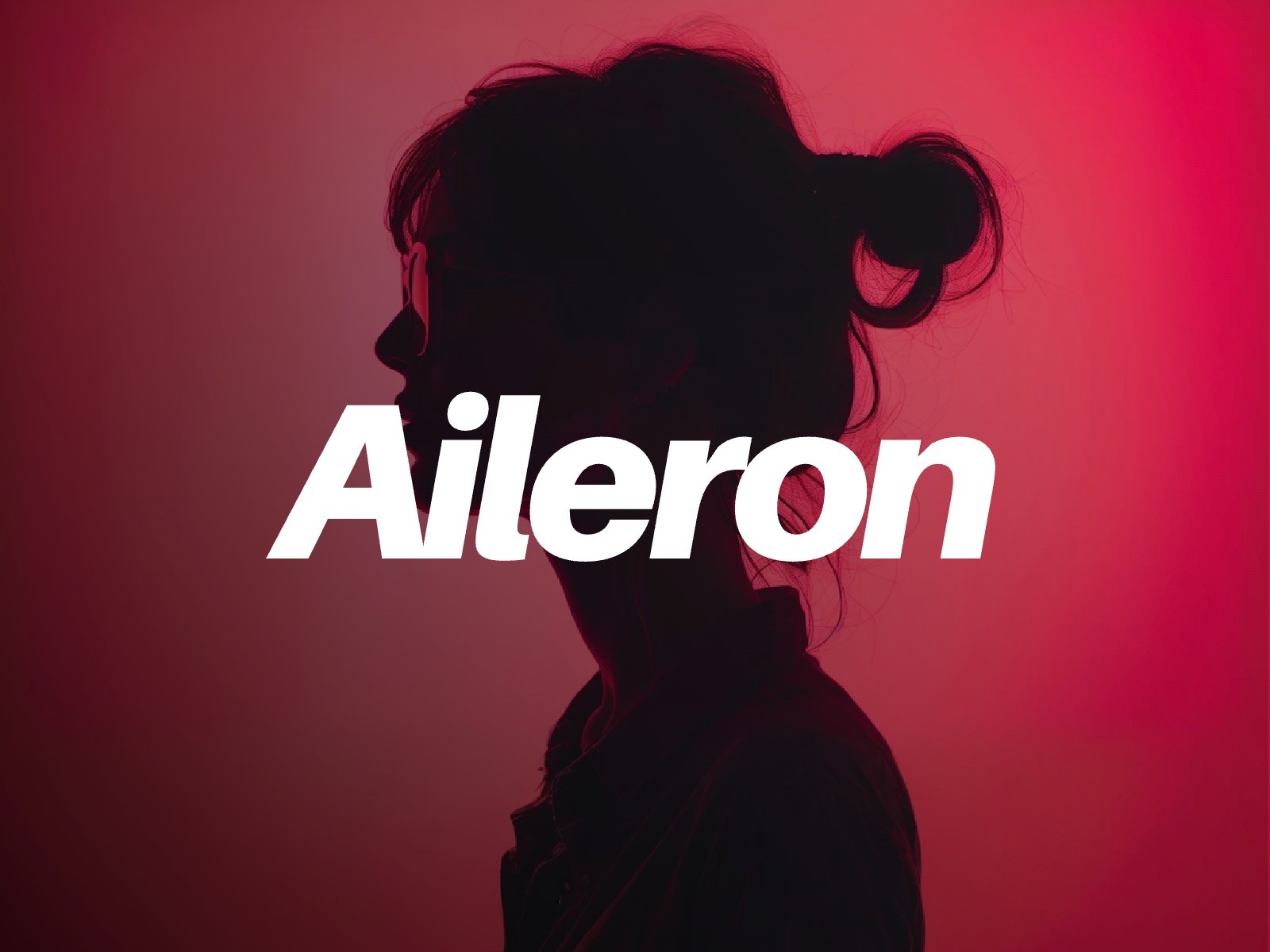
1. Aileron by Dot Colon
Inspired by Helvetica but with smoother curves—ideal for apps, SaaS products, and minimalist portfolios.
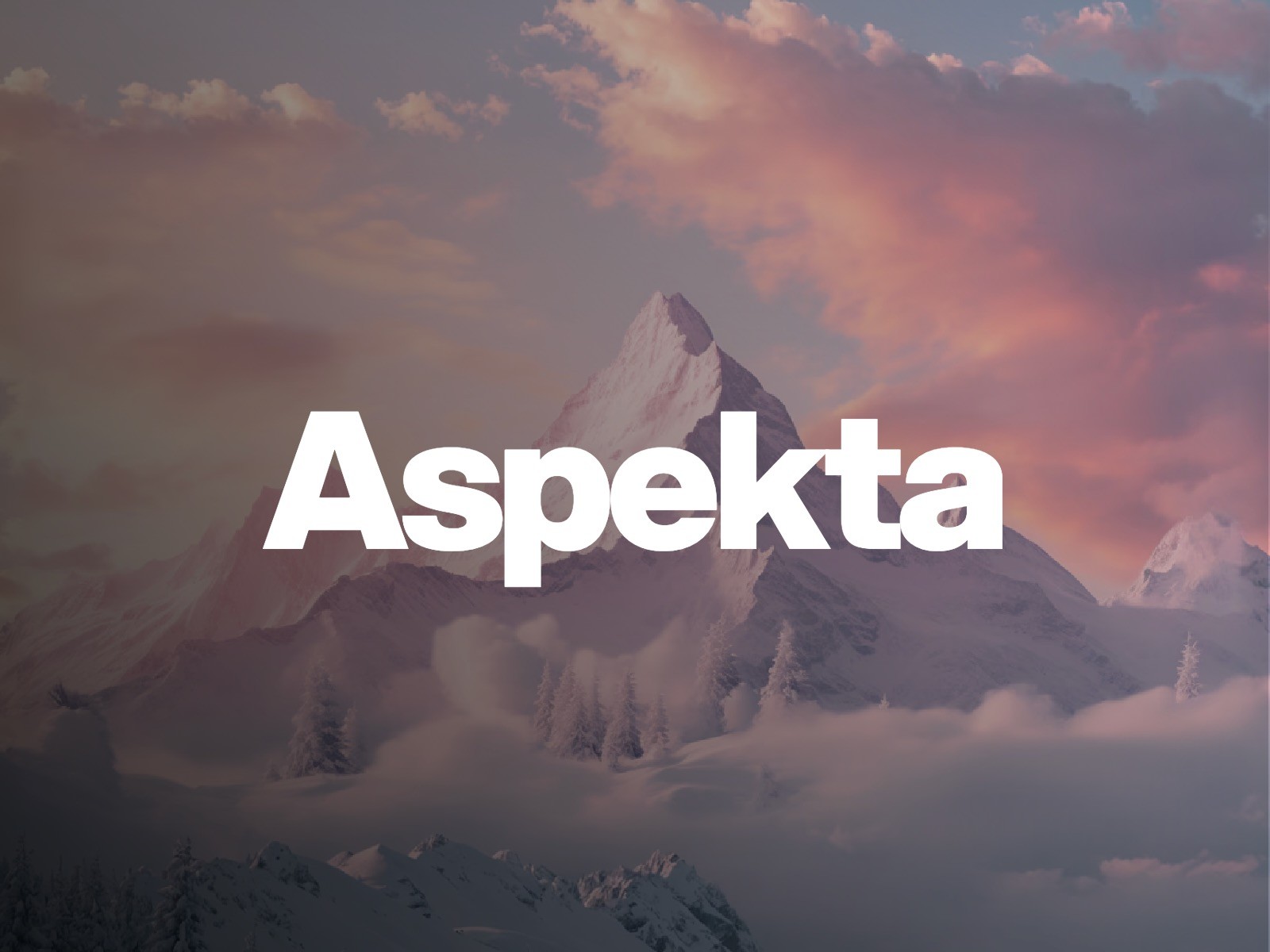
2. Aspekta by Ivo Dolenc
A different visual crop to highlight how Aspekta performs in full-width layouts or hero sections.
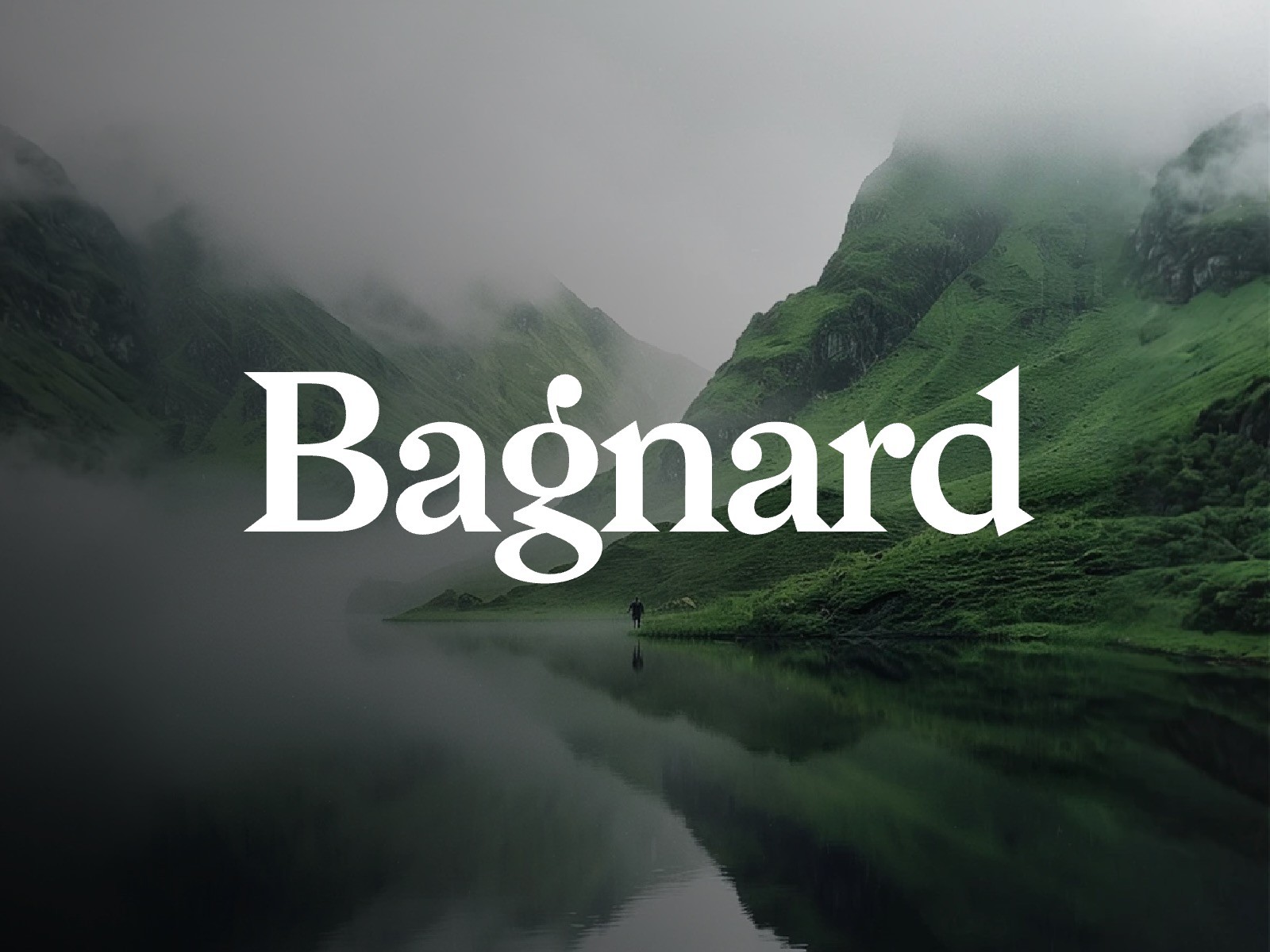
3. Bagnard by Sebastien Sanfilippo
Sharp serifs and powerful presence make Bagnard a smart pick for luxury brands and bold design portfolios.
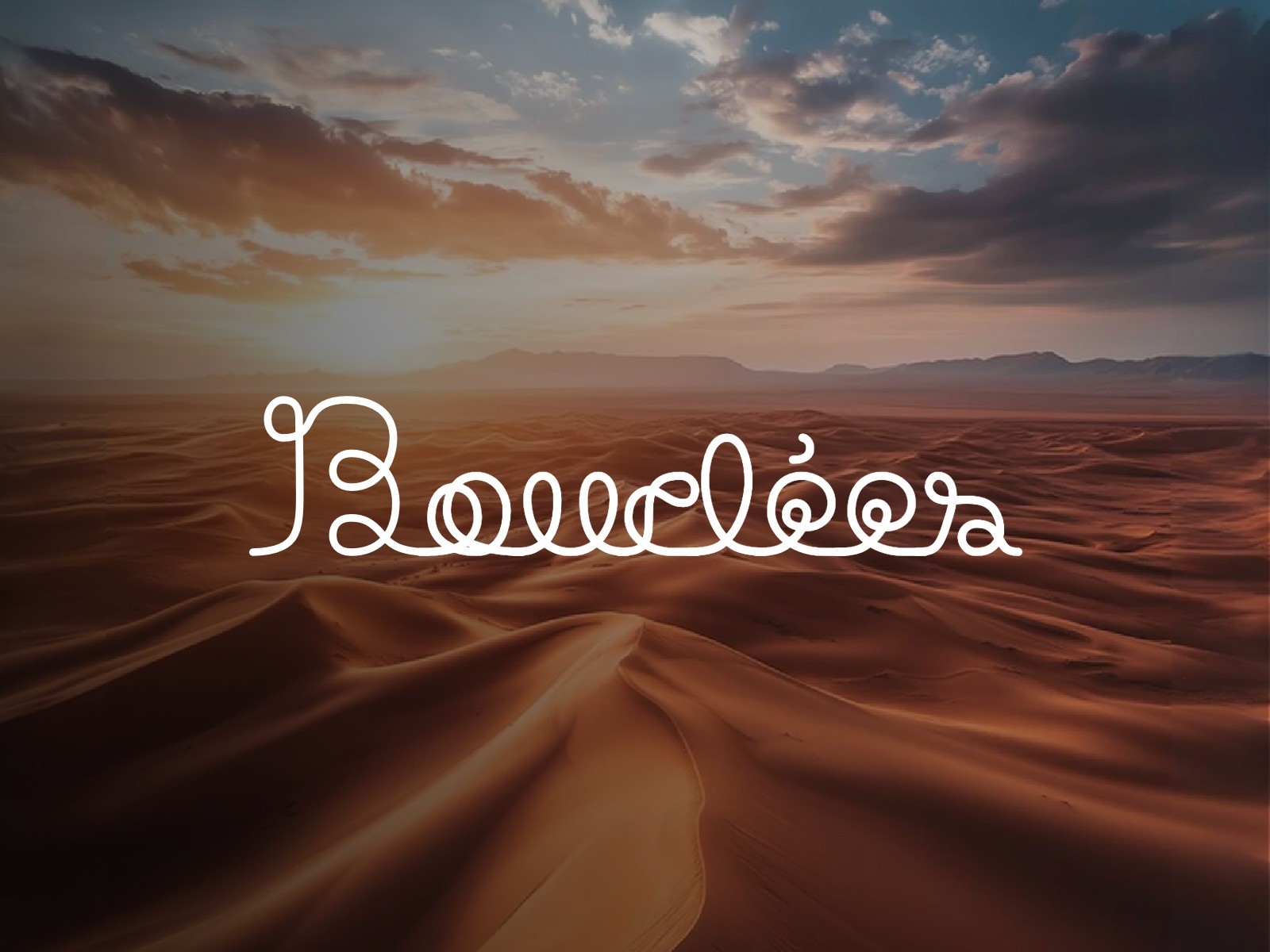
4. Bouclées by BBB
Full of character, Bouclées is a decorative, script-like font—best for artistic projects, event sites, or brand storytelling.
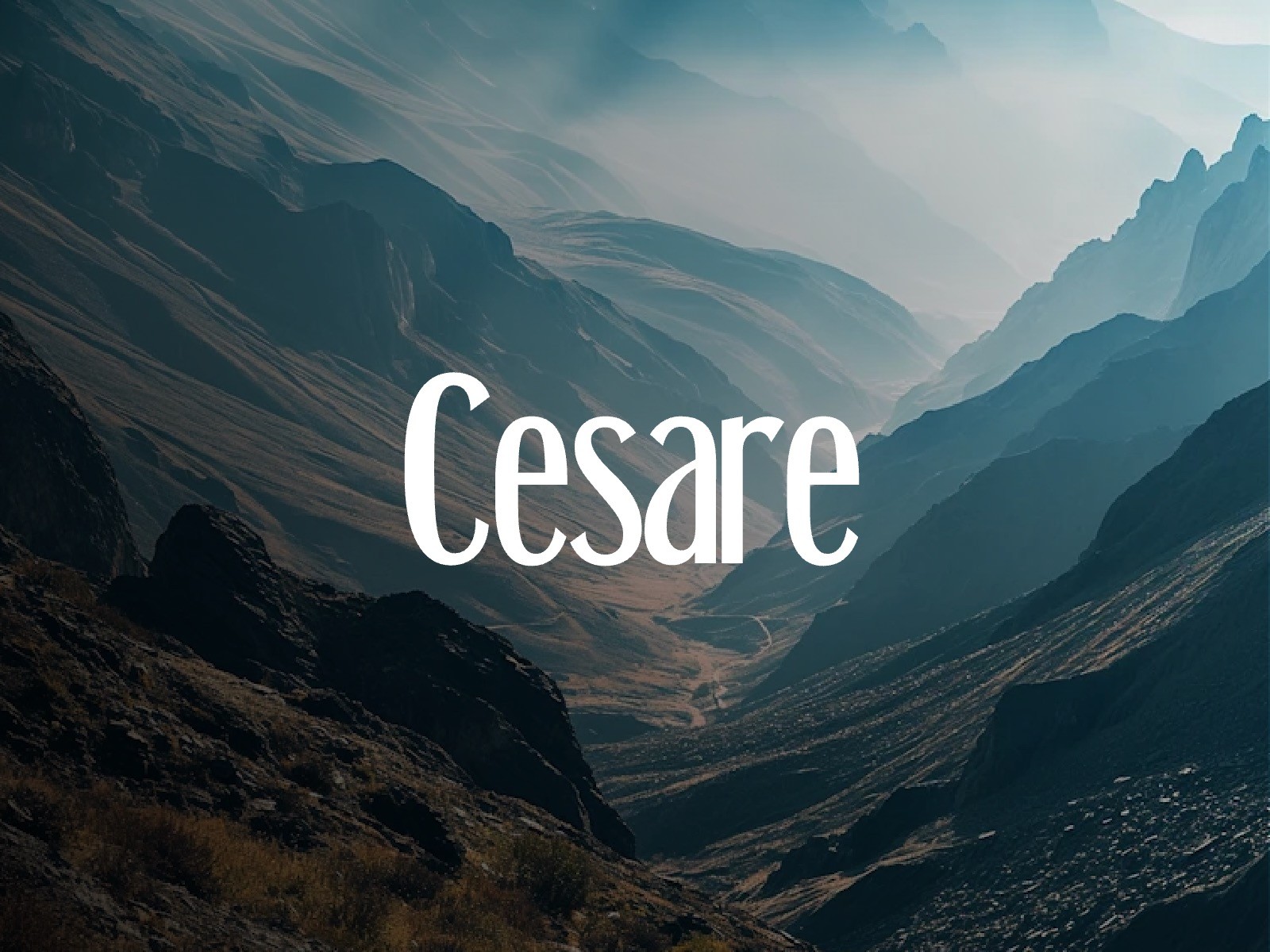
5. Cesare by Alan Madić
A tall, curvy serif font that strikes a balance between elegance and flair. Ideal for digital magazines or elegant landing pages.
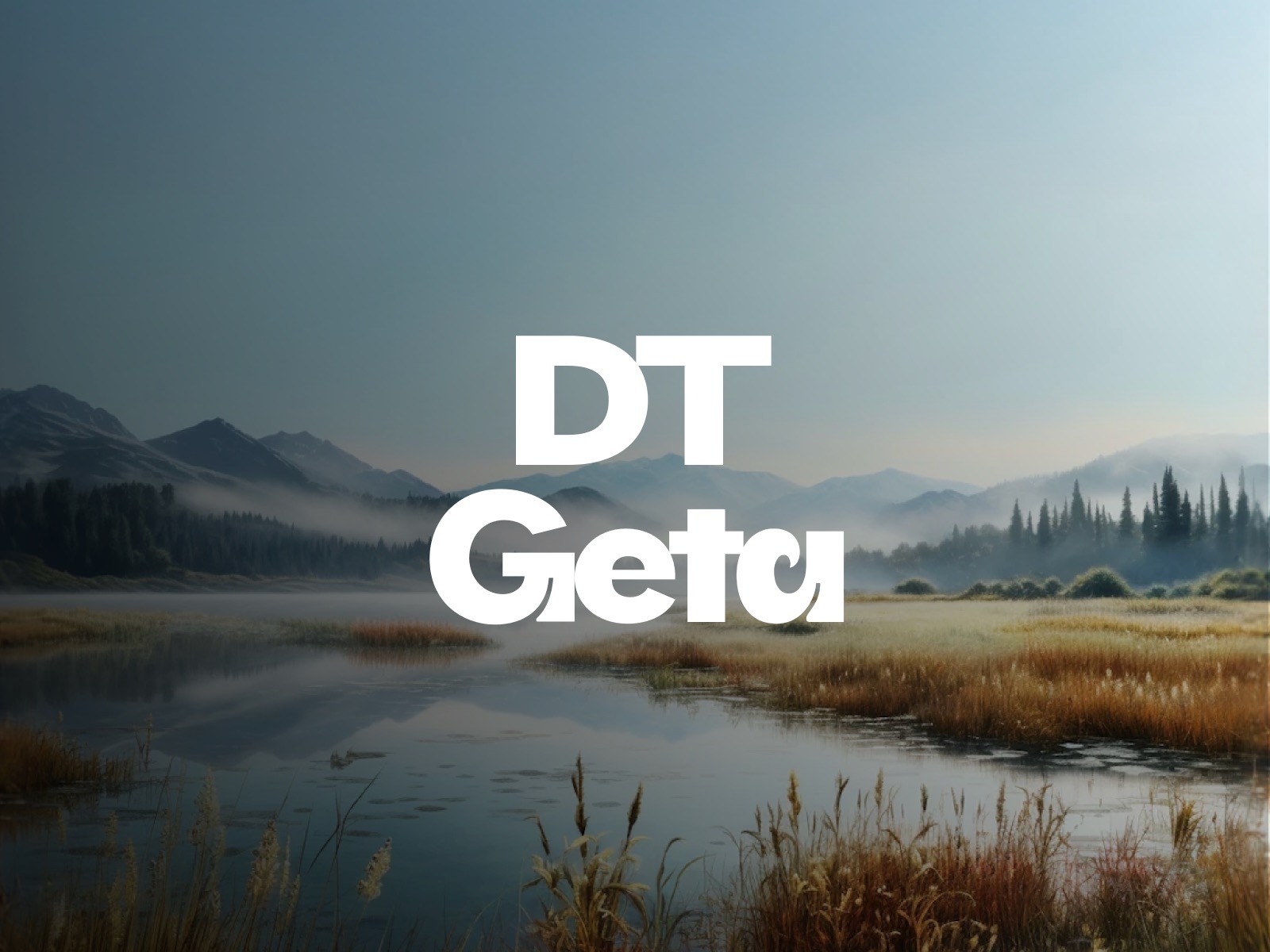
6. DT Getai by DOT and Sylvester San
DT Geta blends modernist proportions with soft curves—great for clean UI, product pages, and modern branding.
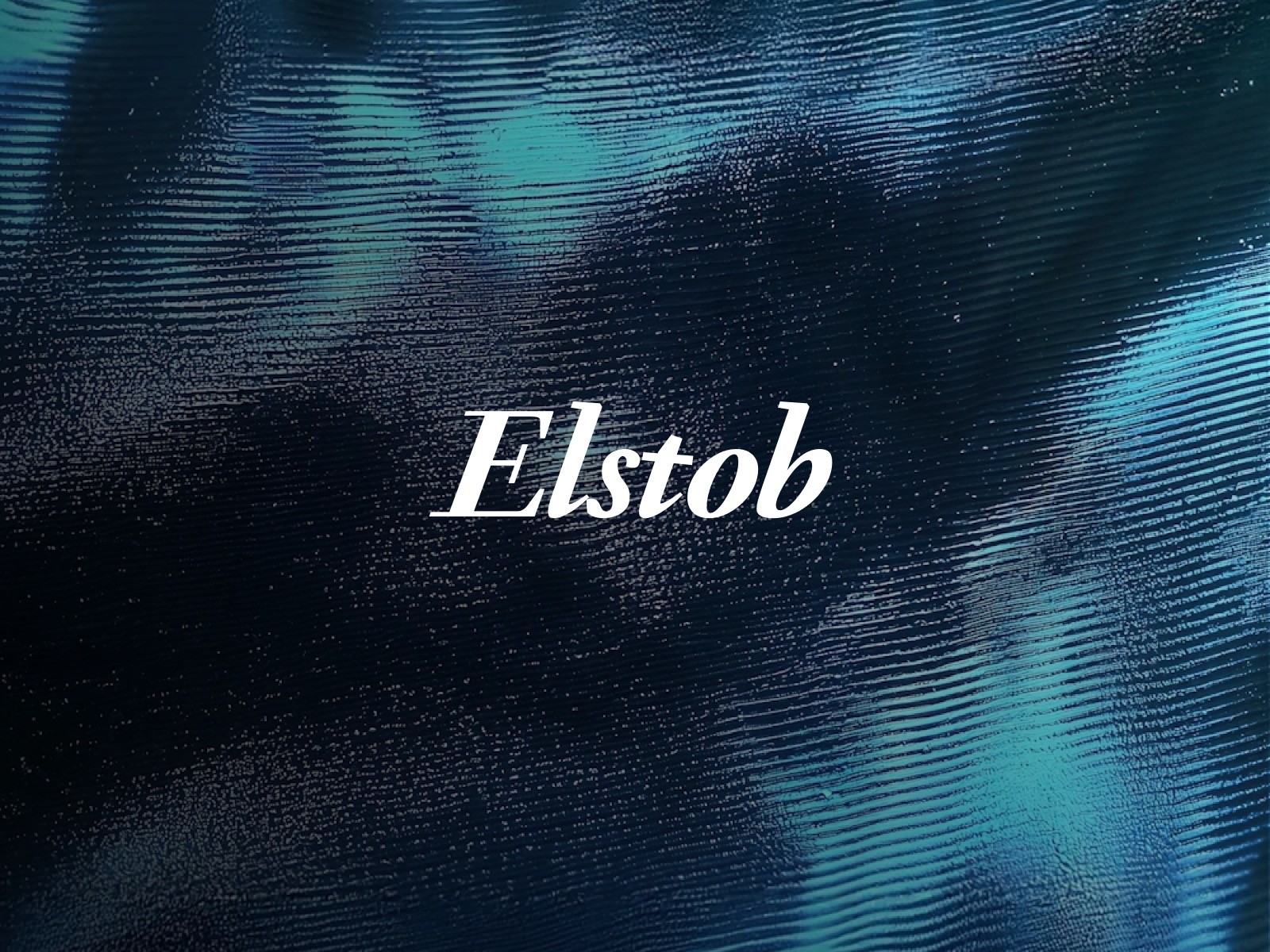
7. Elstob by Peter Baker
A high-contrast serif font with timeless elegance, ideal for editorial layouts, fashion brands, or minimalist blogs.
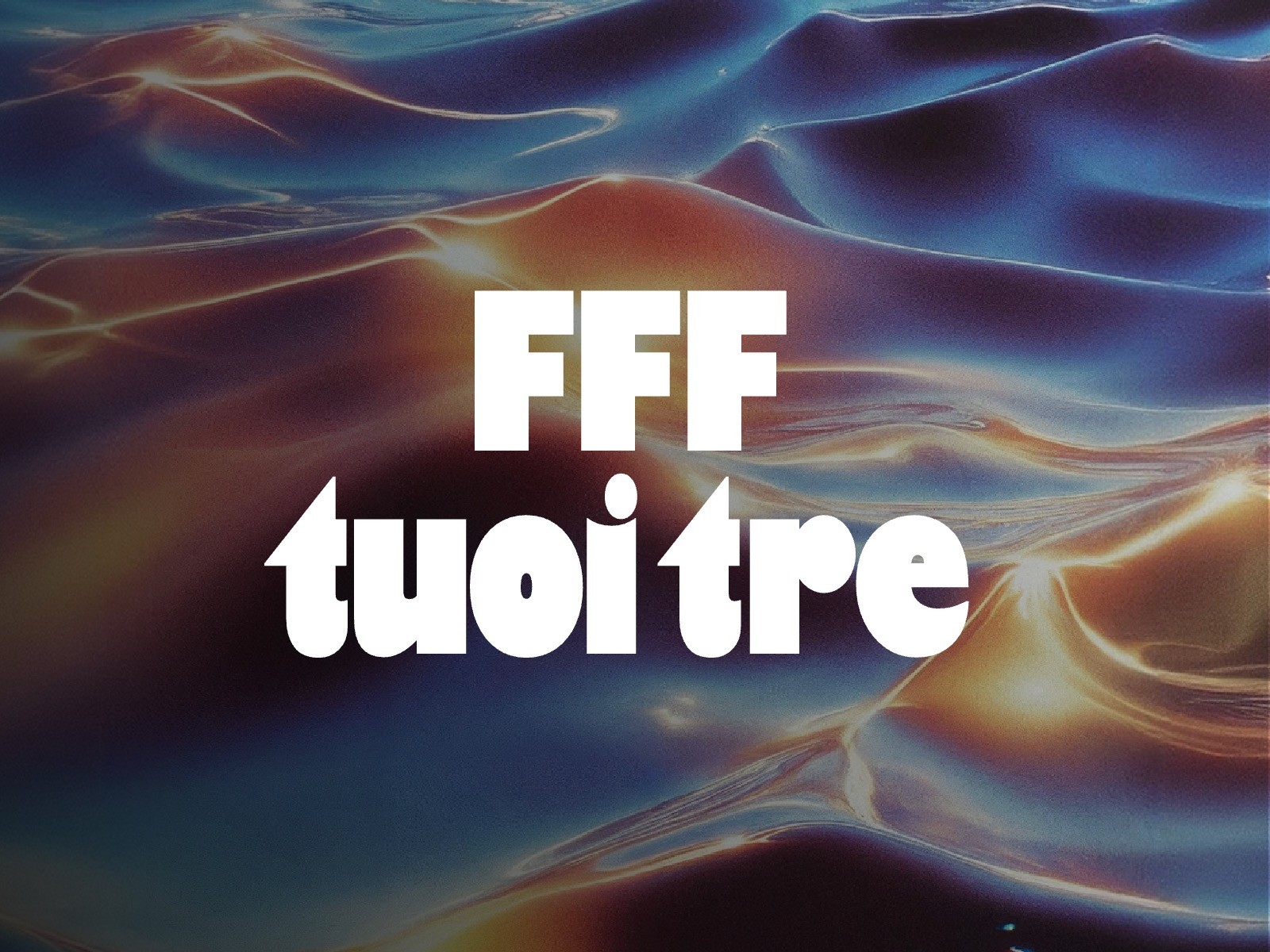
8. FFF Tuoi Tre by bBox Type
This playful, retro-inspired font adds personality to creative or experimental designs. Works great for splash screens and hero headlines.
9. Karrik by BBB
A bold, geometric sans-serif font with a modern, editorial feel—perfect for tech startups and luxury portfolios.
10. Coaster Sans by Mother Type
Coaster Sans Font is a dynamic typeface that enhances typography with its sleek, modern, humanist-inspired aesthetic. Featuring bold strokes and geometric shapes, it balances a retro vibe with contemporary style.
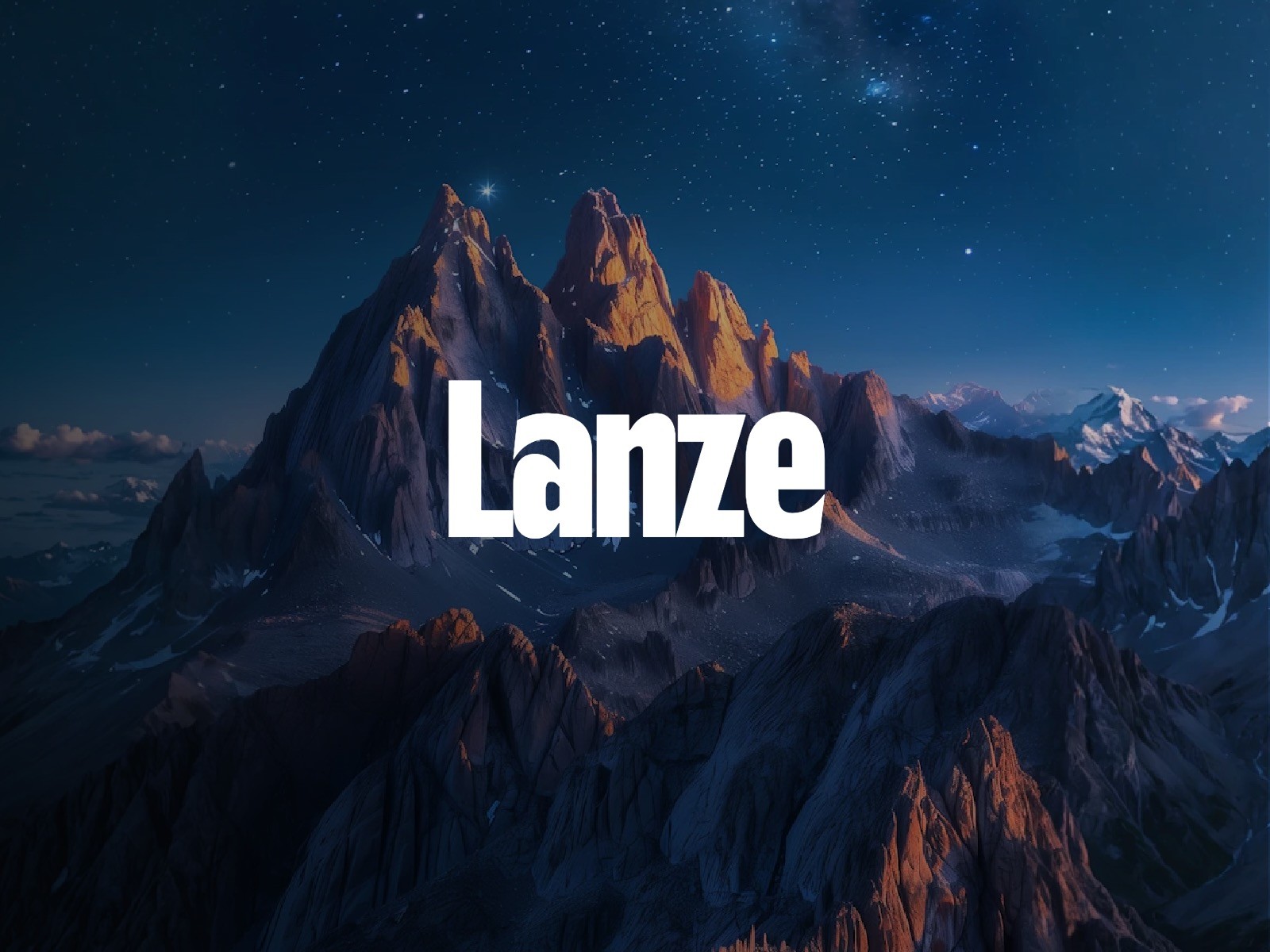
11. Lanze by Dima Grenev
Strong, dynamic, and ultra-bold—Lanze is built for impact. Use it as a display font in Framer hero sections, CTA banners, or product highlights.
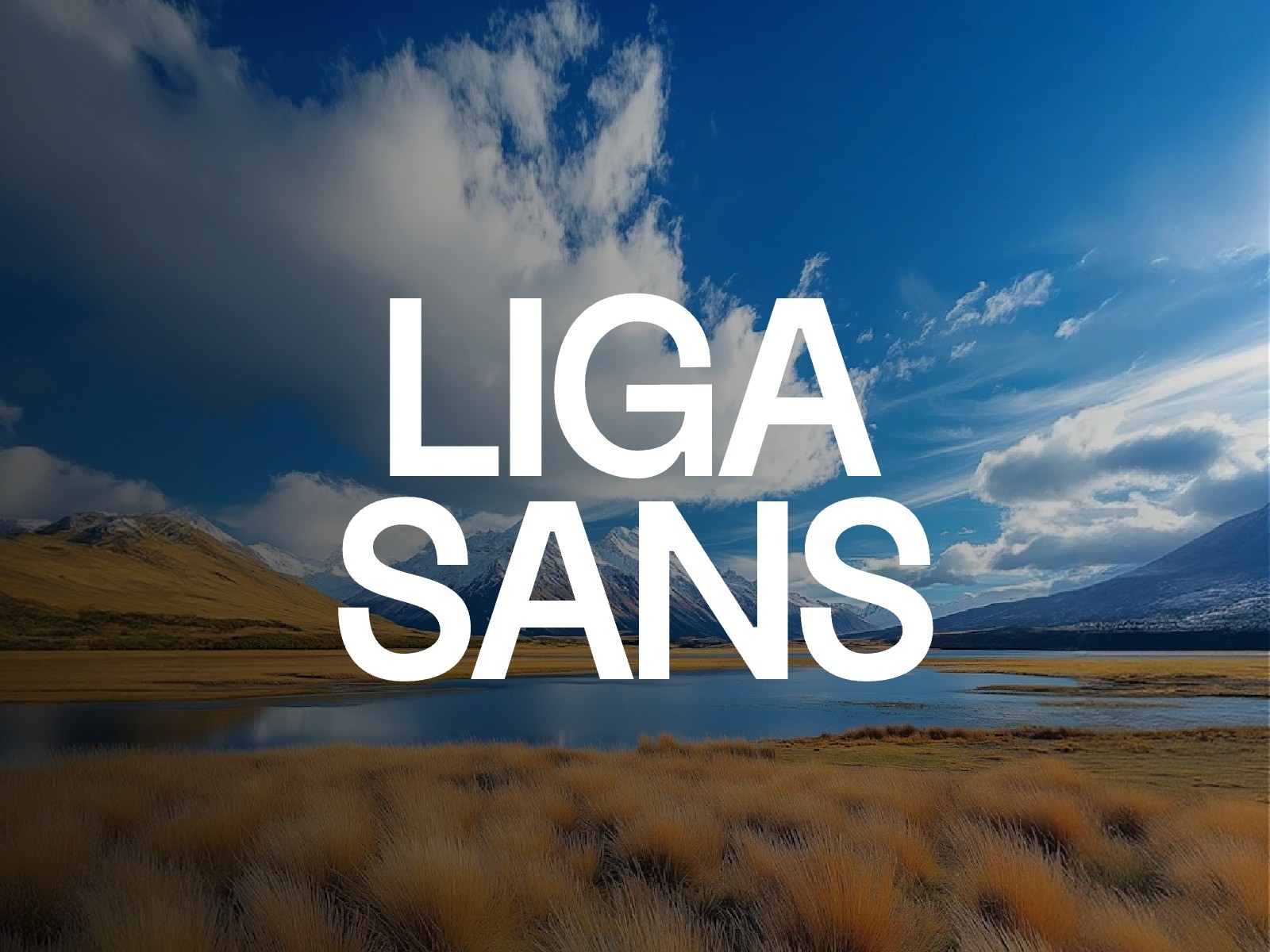
12. Liga Sans by Nathan Laurent
A geometric sans-serif with style and structure, Liga Sans is a versatile typeface built for responsiveness. Use it in Framer templates for business or startup websites.
13. LT Avocado by Lyons Type
Soft, rounded, and incredibly readable, LT Avocado blends casual elegance with design friendliness. Ideal for health, lifestyle, or eCommerce Framer builds.
14. LT Remark by Lyons Type
Elegant and professional, LT Remark is a serif font perfect for editorial sites or digital publications built with Framer UI kits.
15. Mluvka by Jiří Krblich
Mluvka’s smooth lines and balanced proportions make it a reliable choice for product landing pages, mobile apps, or modern Framer component libraries.
16. Neutral Sans by Barry Shawn
True to its name, Neutral Sans is a clean, minimal font that works across a wide range of Framer templates and modern UI kits—great for SaaS, agencies, or blogs.
17. Nouvelle Grotesquerie by Guillaume Lelong
This heavy-weight, ultra-wide Framer font delivers impact in headlines and hero sections. Ideal for fashion brands, bold campaigns, or tech startups looking to make a statement.
18. Néo Castel by Max Lillo
A retro-futuristic font with pixel-inspired quirks, Néo Castel is bold, experimental, and perfect for creative websites, digital art portfolios, and unique landing pages.
19. Optician Sans by ANTI Hamar
Inspired by eye charts and optical precision, Optician Sans is a strong, universal typeface built for clarity. Great for legibility-focused layouts like fintech, medical, or data-heavy Framer builds.
20. Projekt Blackbird by Leonit Gashi
A geometric sans-serif that feels elegant and refined. Projekt Blackbird is a go-to font for minimalist design systems, Framer UI kits, and brands that lean into structure and precision.
Conclusion
Typography is the soul of your brand. Whether you’re building with Framer or designing in Figma, these fonts offer both style and substance. Try mixing serif and sans-serif combinations for a polished, editorial look—or go full bold with expressive display fonts.